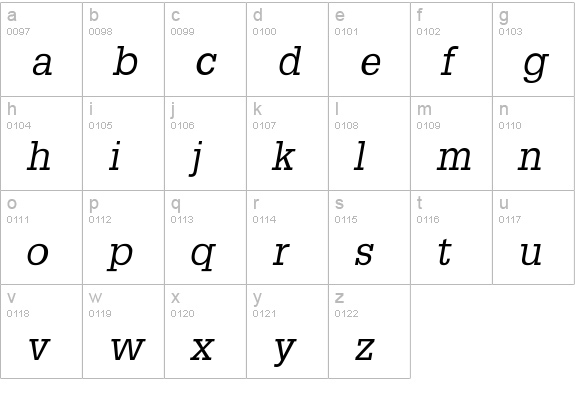
Glyph 55 Oblique Font Details
Glyph 55 Oblique is a distinctive, italic variant in the Glyph typeface family \xE2\x80\x94 well suited to design and typography projects.
Glyph 55 Oblique font is a modern and stylish typeface that exudes elegance and sophistication. Its slanted design adds a touch of dynamism to any text, making it perfect for adding a contemporary edge to your projects. With its clean lines and sleek curves, Glyph 55 Oblique font is versatile and can be used for a variety of design purposes, from branding to editorial layouts. This font is not only visually striking but also incredibly easy to read, making it a practical choice for both print and digital applications. Whether you're designing a poster, website, or logo, Glyph 55 Oblique font will make your text stand out with its unique flair. Best of all, Glyph 55 Oblique font is completely free to download at FontsMarket.com. So you can elevate your designs without breaking the bank. Don't miss out on this opportunity to enhance your typography collection with this stunning and freely available font.